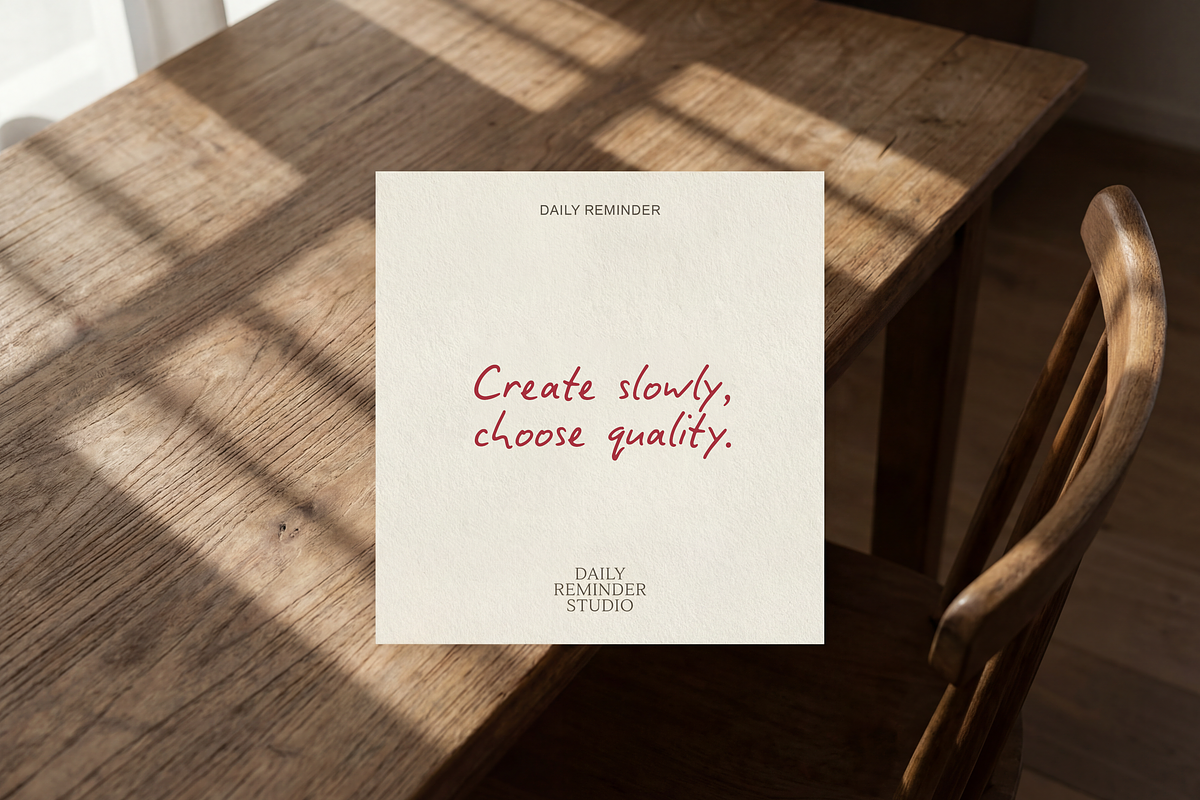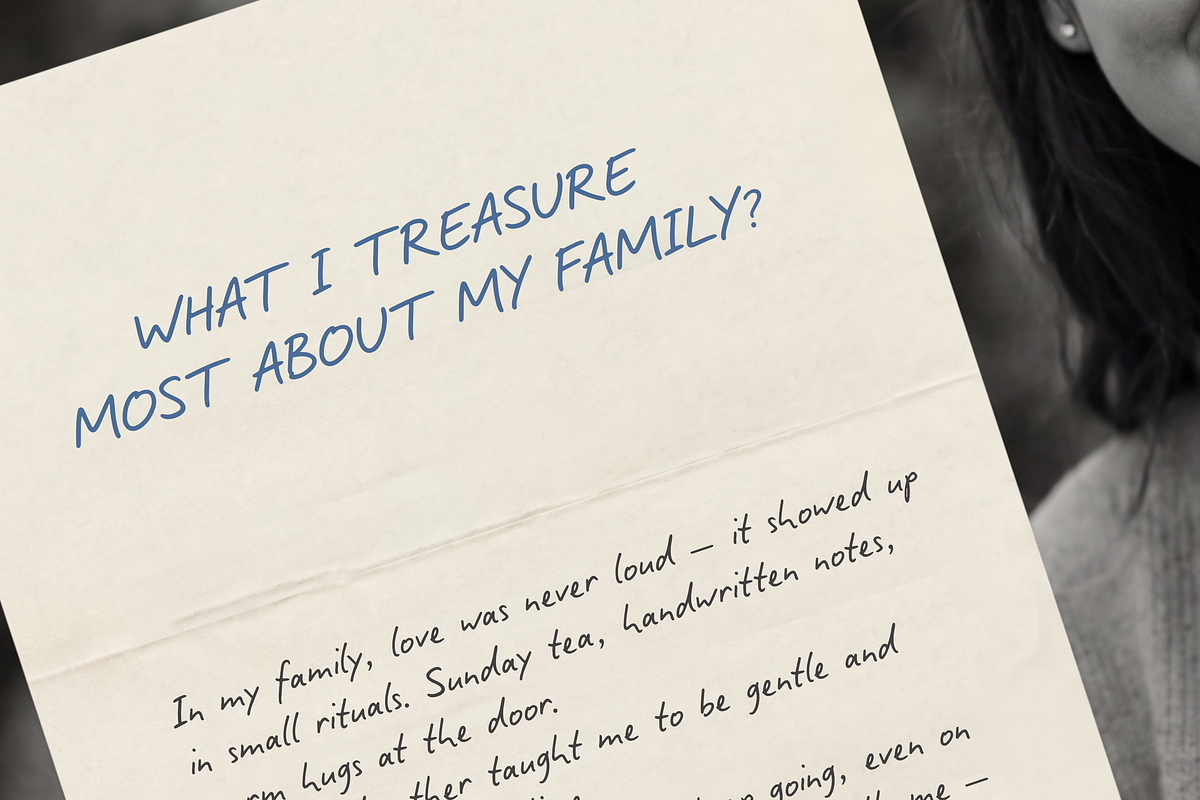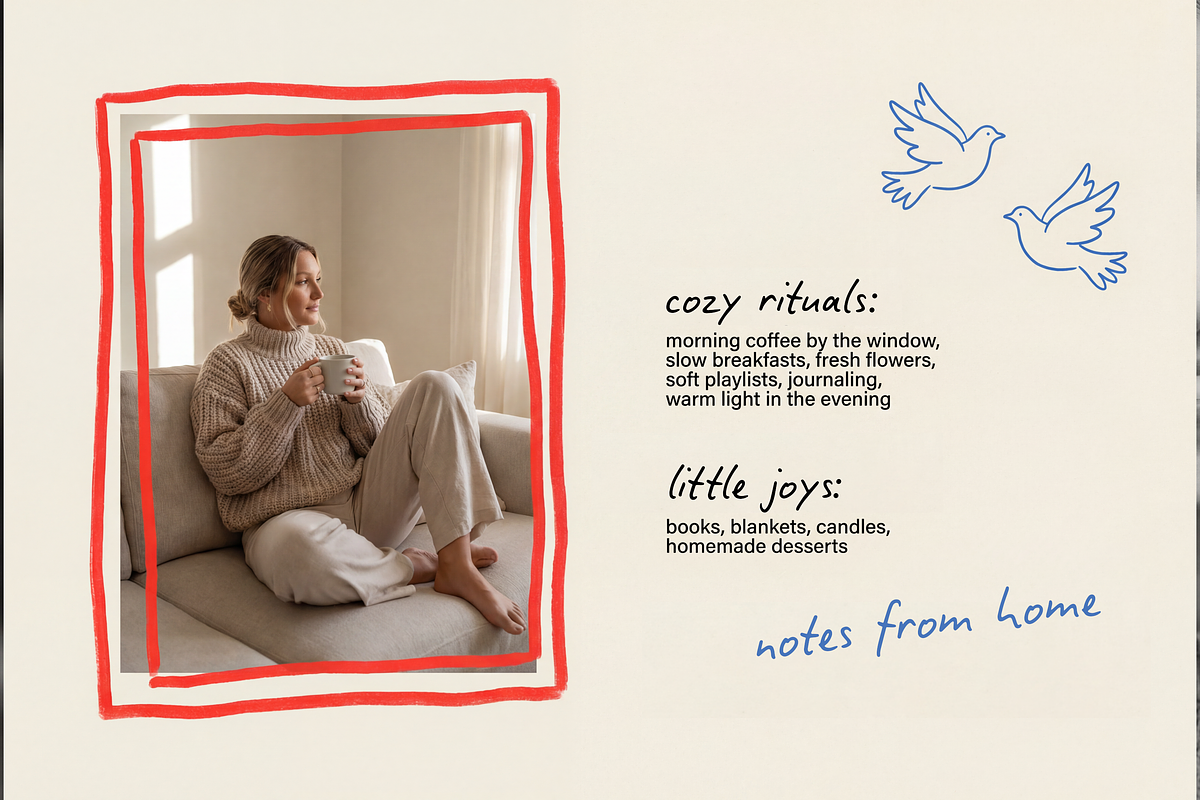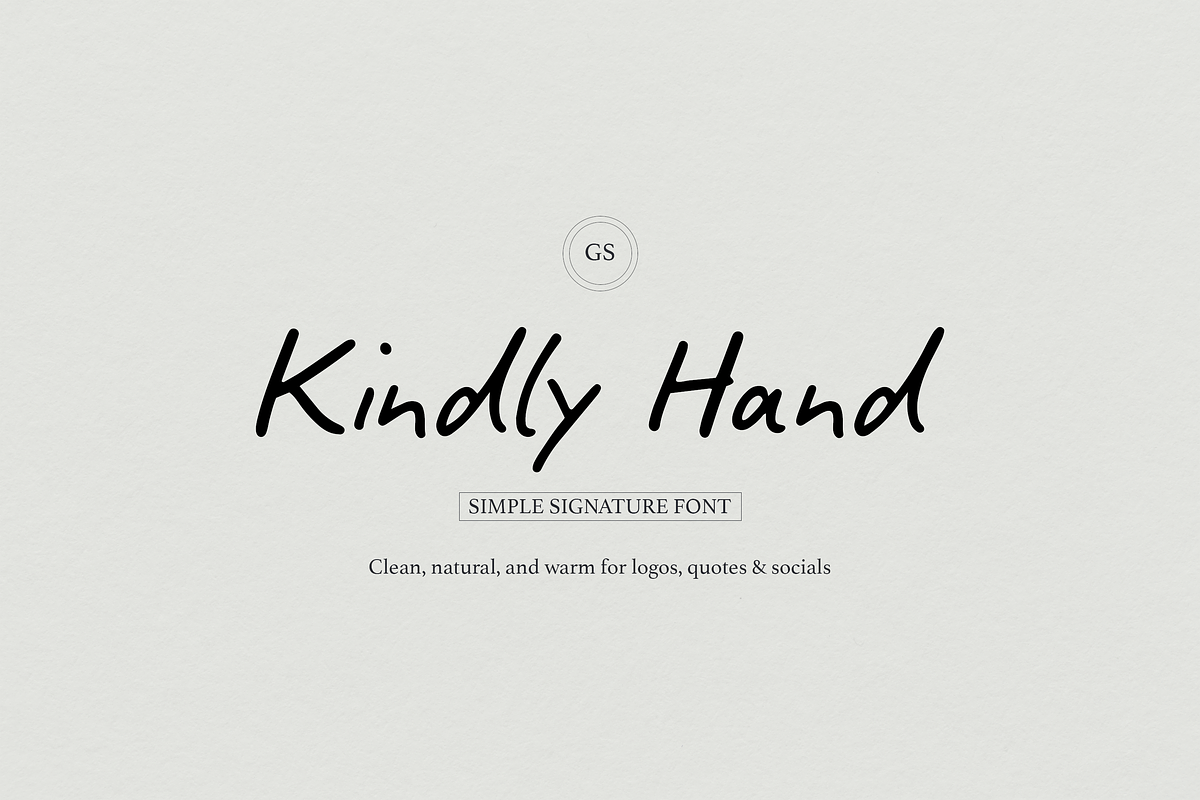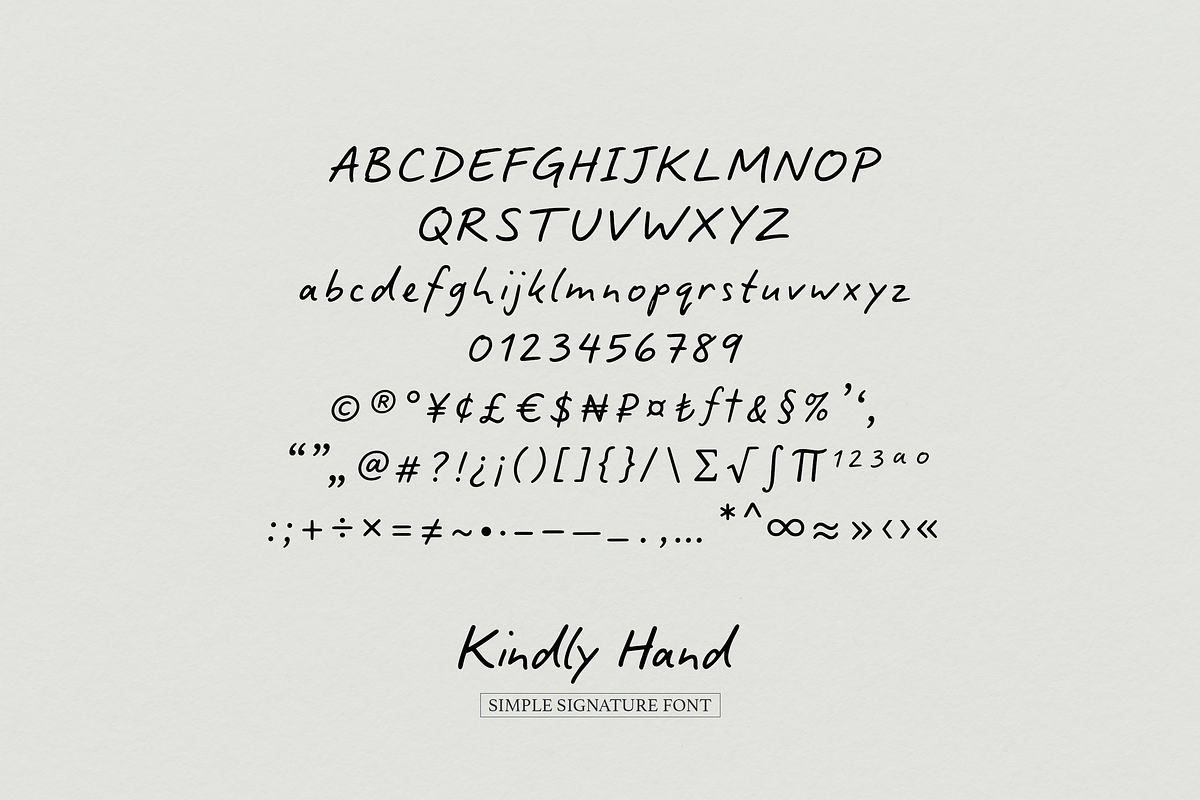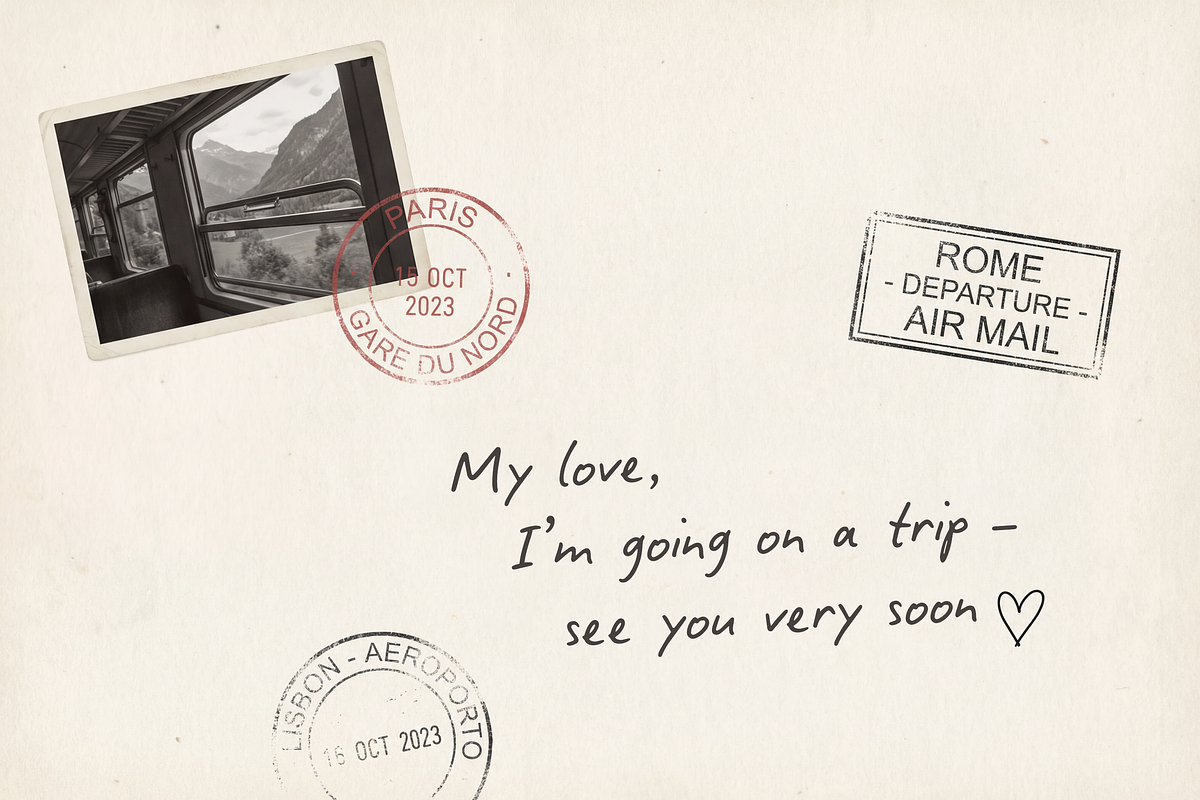
Kindly Hand — Simple Signature Font
Kindly Hand is a simple signature font with a clean, natural feel. It’s designed to look like real handwriting—smooth, slightly imperfect, and warm—so your designs feel personal while staying minimal.
Use it for logos, branding, social media posts, quotes, website headers, packaging, and stationery. Kindly Hand stays readable and keeps that effortless handwritten charm.
Perfect for creators, lifestyle brands, small businesses, photographers, and bloggers who love calm, modern aesthetics.
- Basic Latin (A–Z), numerals, punctuation, currency symbols, and common math symbols.
- Clean handwritten style
- Natural “signature” look
- Easy to read
- Works great for logos and short text
- Smooth strokes with a warm, friendly vibe